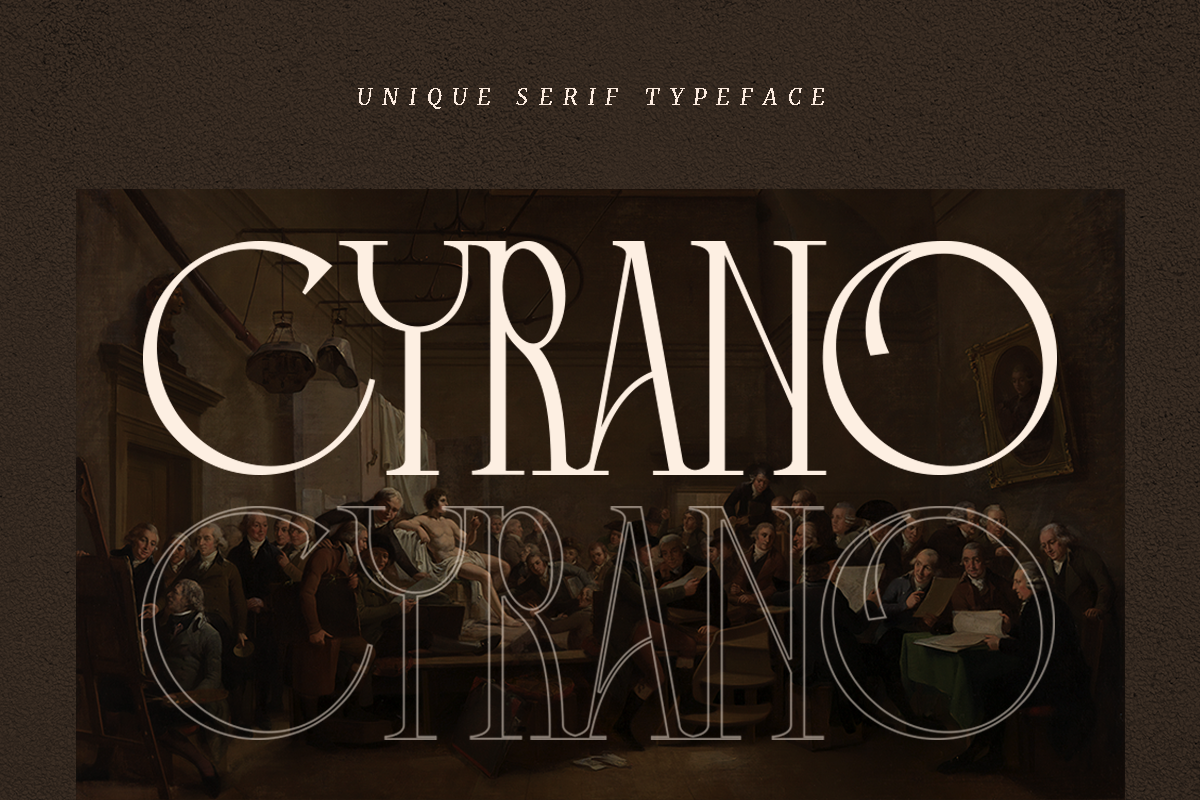
Cyrano Font Free Download is a distinctive serif typeface that combines artistic flair with timeless elegance. With its unique letterforms, stylish ligatures, and high-contrast details, Cyrano is perfect for branding, editorial layouts, luxury packaging, wedding invitations, and creative projects that call for a refined yet original typographic voice.
Designed to stand out while remaining classy, Cyrano Font Free Download brings a fresh twist to traditional serif design. Its sharp serifs, graceful curves, and unique alternates allow for stunning typography that captures attention in both print and digital formats.
Whether you’re crafting a fashion brand identity, designing a book cover, or building an elegant website, Cyrano adds a layer of sophistication and creativity. It pairs beautifully with minimalist sans-serifs or delicate scripts, offering a versatile balance between boldness and beauty.